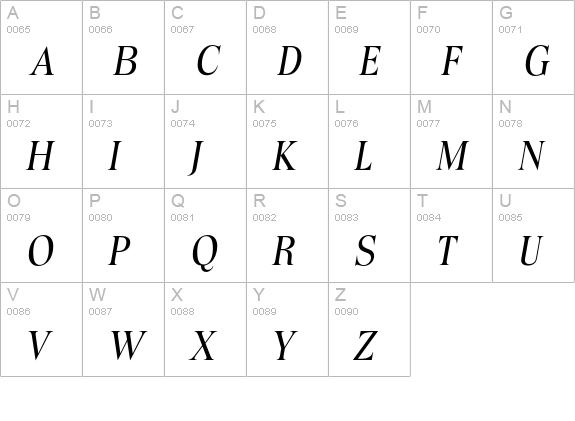
Toledo-RegularIta is a captivating and versatile font that effortlessly combines elegance with a touch of sophistication. Its smooth and flowing strokes create a sense of balance and harmony, making it suitable for a wide range of design projects. This font exudes a timeless appeal, making it perfect for both traditional and modern designs. Whether you're designing wedding invitations, branding materials, or editorial layouts, Toledo-RegularIta will add a touch of refinement that will elevate your creations. The distinctive letterforms of Toledo-RegularIta are carefully crafted, ensuring legibility and readability at any size. Its italic style adds a dash of flair and personality to your text, making it a great choice for titles and headlines that demand attention. One of the most remarkable aspects of Toledo-RegularIta is that it is free. Yes, you read that right! This stunning font is freely available to download at FontsMarket.com. This means that you can enhance your design projects without spending a penny. So, why wait? Discover the beauty and versatility of Toledo-RegularIta. Download it today from FontsMarket.com and let your creativity soar to new heights.